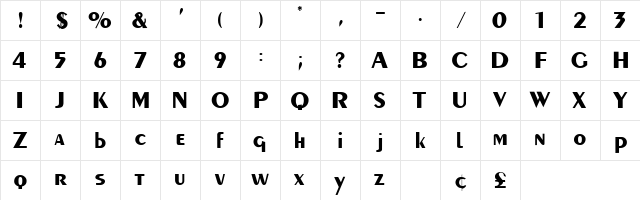
EveningCaps Normal
Design Context for EveningCaps
EveningCaps is a composed and adaptable typeface that performs quietly and consistently across a wide range of design contexts.